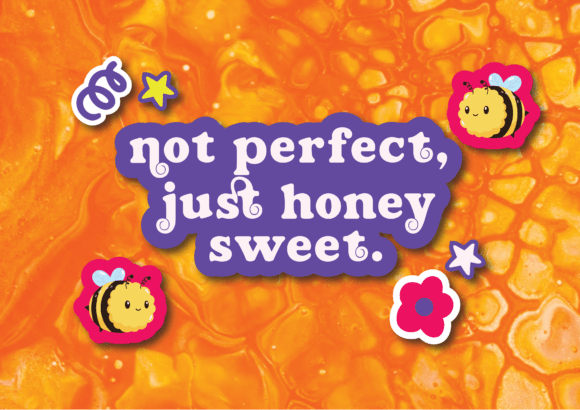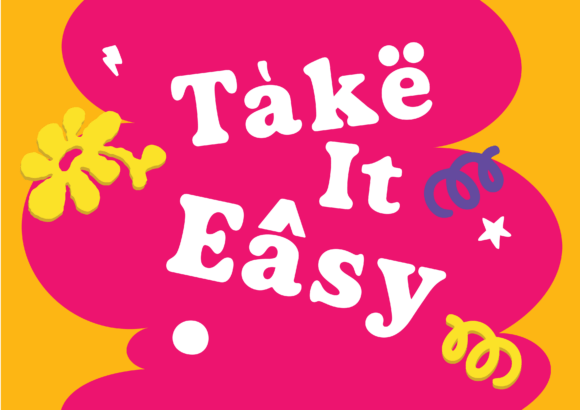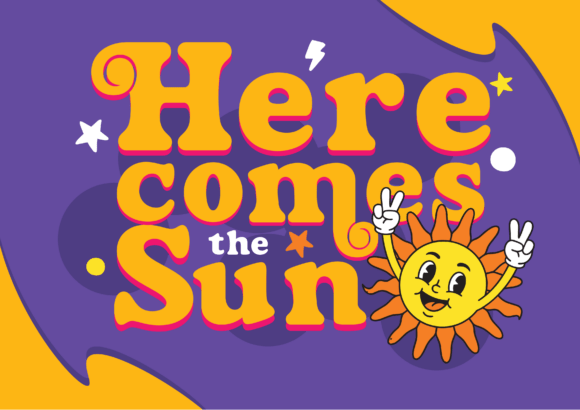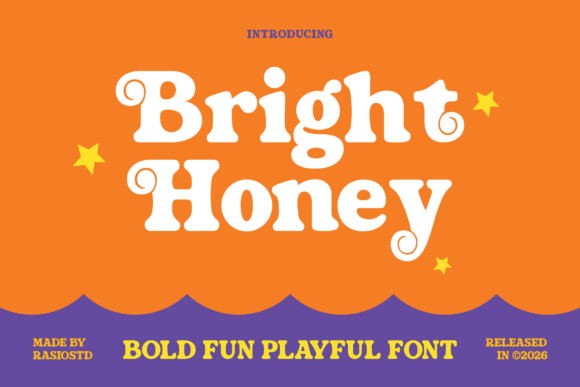
The Sweet Spot: Discovering Bright Honey Font
I still remember the design project that led me to Bright Honey Font. I was working on a branding project for a children’s play area, and I needed a font that was playful, fun, and energetic. I’d scoured through font libraries and marketplaces, but nothing seemed quite right. That was until I stumbled upon Bright Honey – a cheerful, bold display font that instantly captured the vibe I was looking for.
First Impressions: A Review of Bright Honey Font
• ✅ The quirky swirls on selected characters add a delightful touch of whimsy.
• ✅ The bubbly rounded forms make the font feel approachable and friendly.
• ✅ Full uppercase and lowercase sets, numbers, punctuation, and multilingual support make it versatile.
• ✅ The vibrant tone is perfect for playful branding, kids-themed projects, and retro-inspired visuals.
While Bright Honey is an excellent font, there are a few things to keep in mind:
• 🤔 Some characters may not be suitable for body text due to their bold and playful nature.
• ⚠️ The font’s uniqueness might not make it the best choice for very formal or professional projects.
The Story Behind Bright Honey
Bright Honey was designed with the intention of capturing the essence of childhood wonder and playfulness. The designer, inspired by the whimsical world of children’s literature and illustration, aimed to create a font that would bring a smile to people’s faces. With its quirky swirls and bubbly forms, Bright Honey is the perfect embodiment of fun and personality.
What type of projects is Bright Honey best suited for? Bright Honey is perfect for playful branding, kids-themed projects, and retro-inspired visuals.
Does Bright Honey support multilingual text? Yes, Bright Honey includes multilingual support.